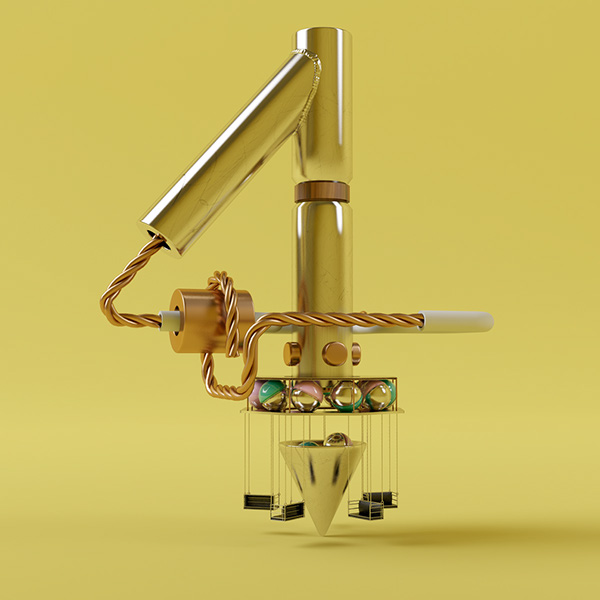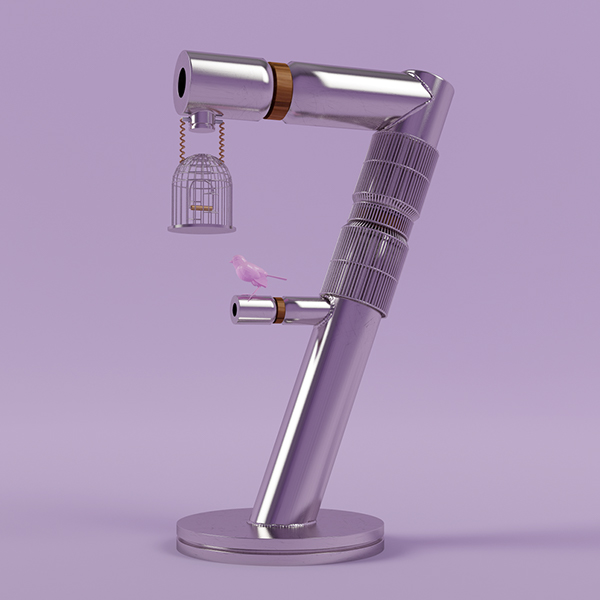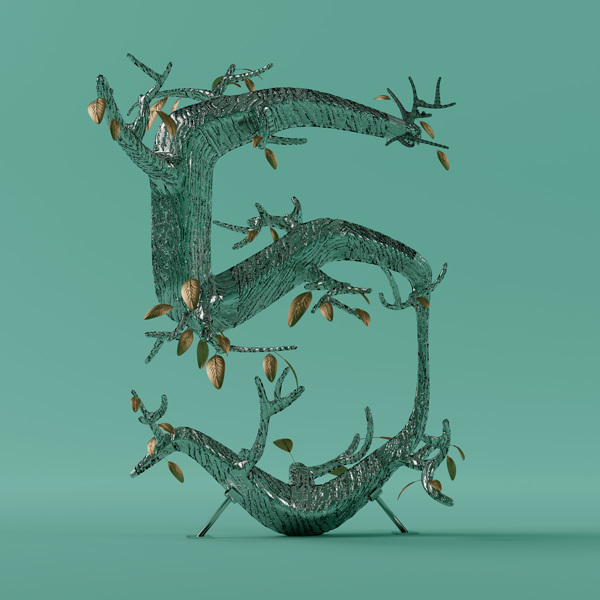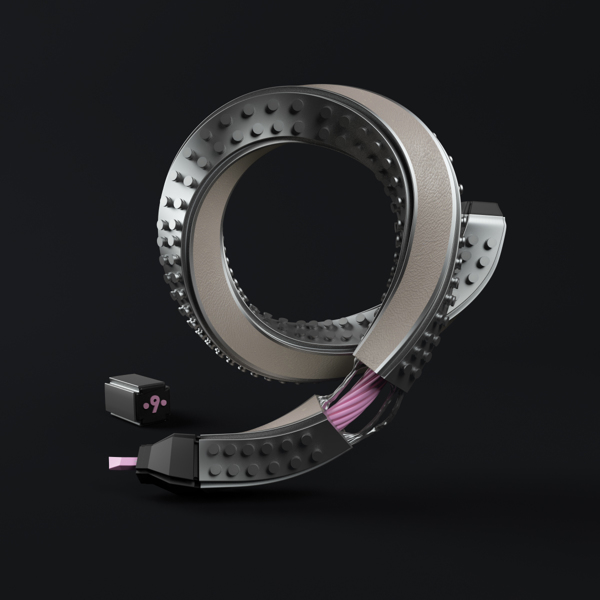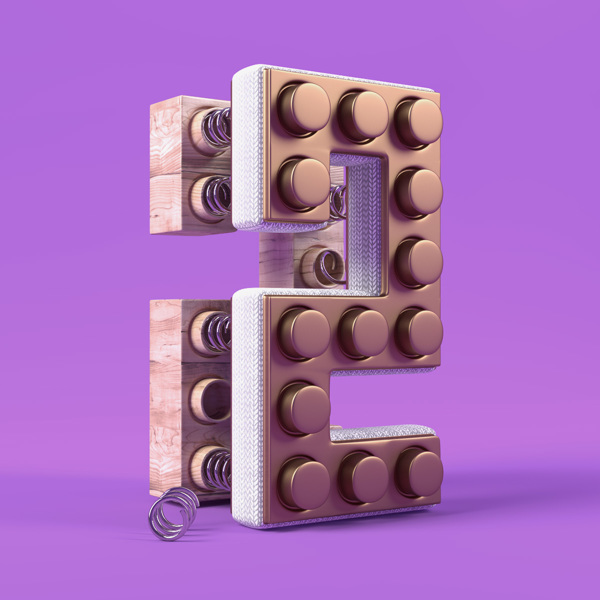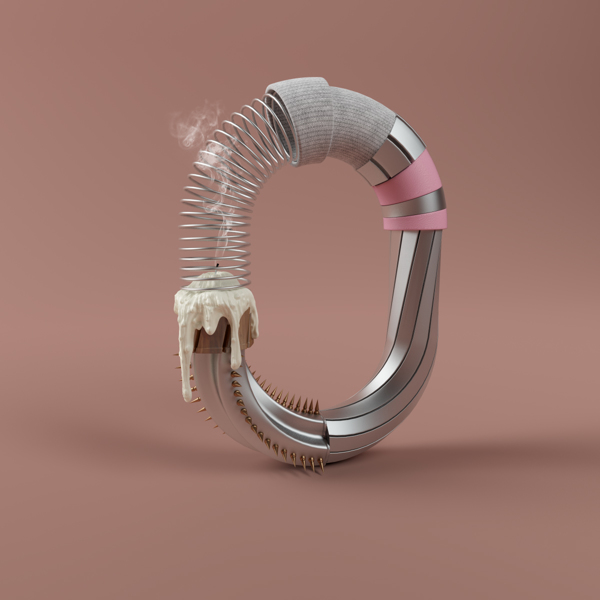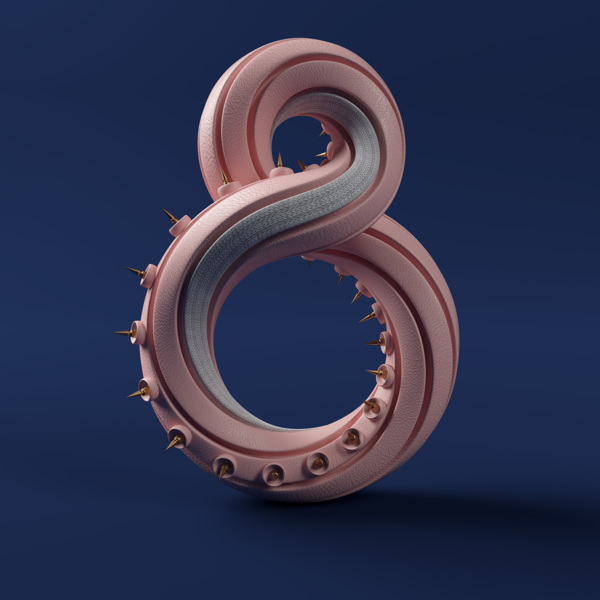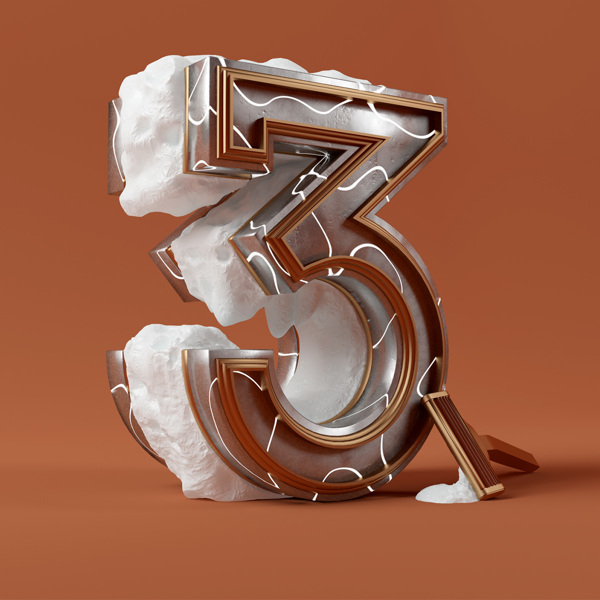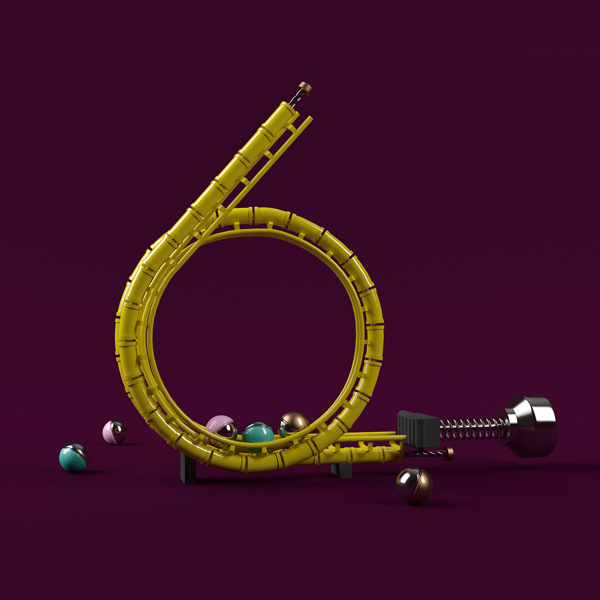
Typography numbers in 3D
Nantes-based studio RDN, always eager to implement new ideas, has created a series of 3D numbers, seemingly made of everyday objects. The numbers that range from 0-9 were constructed using Photoshop and Illustrator for the 36 days of type project (you can check it out here) and they are all unique, imaginative and super cool.